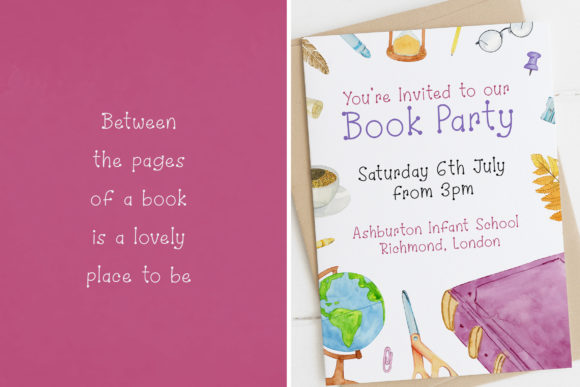
Ballpoint Pen Font
Ballpoint pen is a playful and fun display font that embodies charm and youth in every character! It’s perfect for children’s notebooks, storybooks, fantasy book covers, apparel designs, and more!